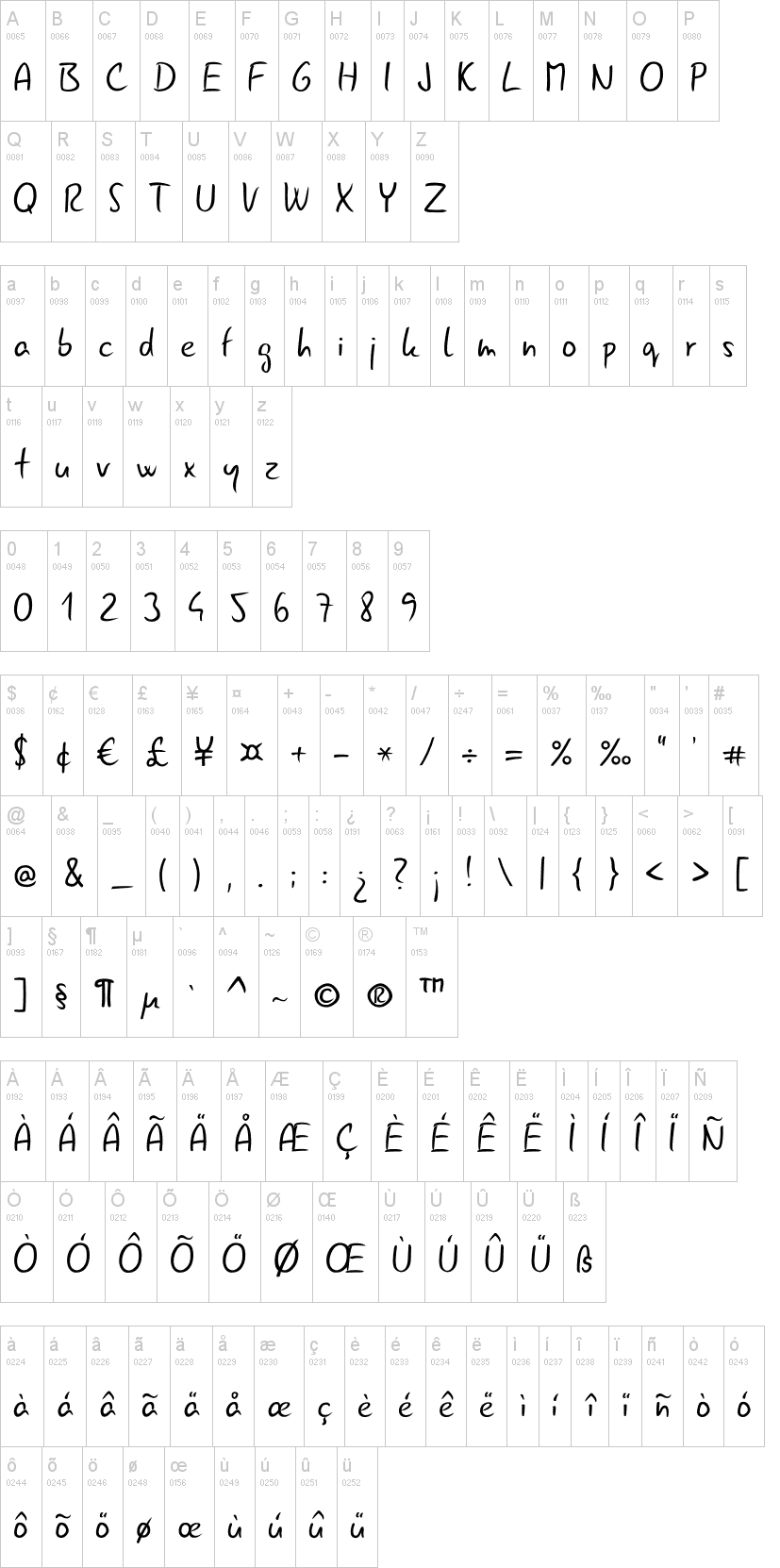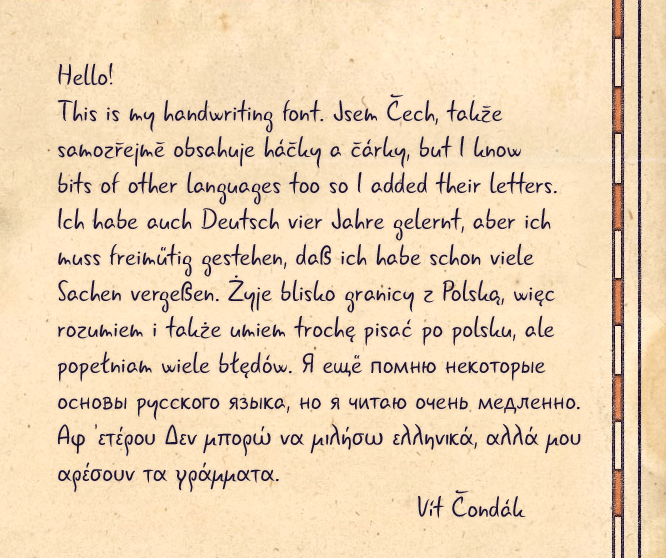
Шрифт Gunny Rewritten
A revised version of my older font Gunny Handwriting. That's how I really write when I try to make it at least a little bit readable for other people. =) This version is more consistent and it includes more international characters.
Update 2014/02: Fixed apostrophe, modified quotes, parentheses and brackets, modified several Greek letters and kerning, added Cyrillic (Russian) support.